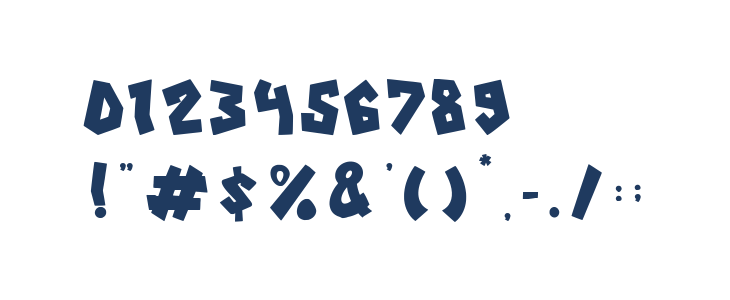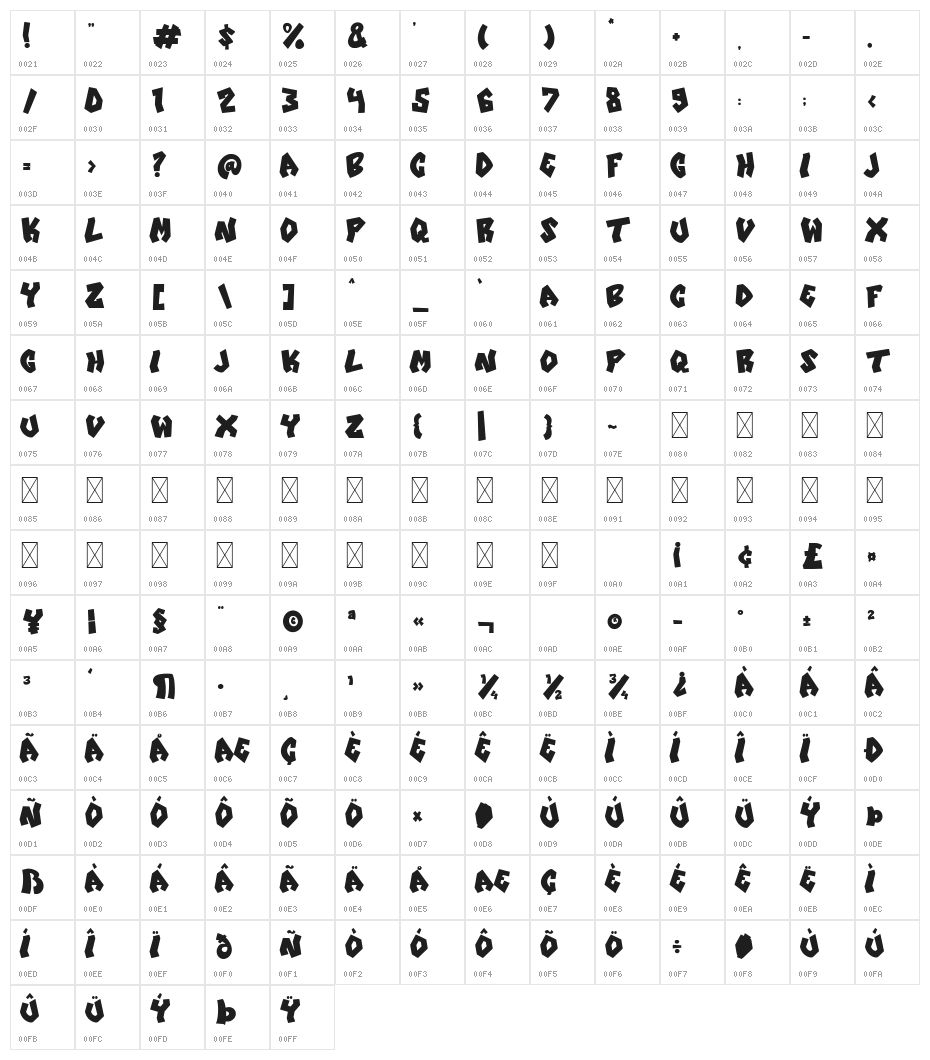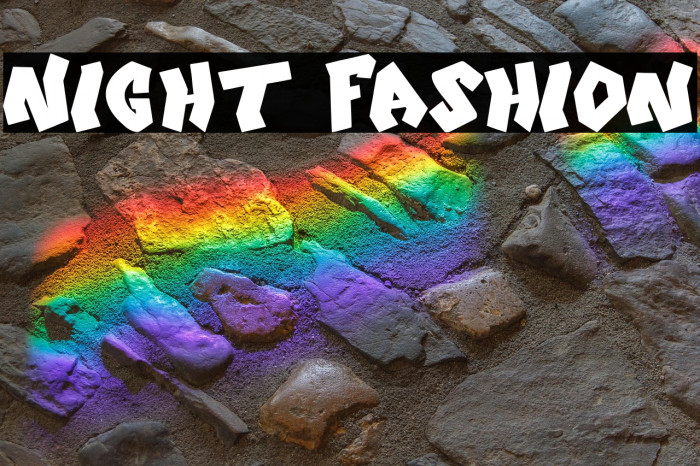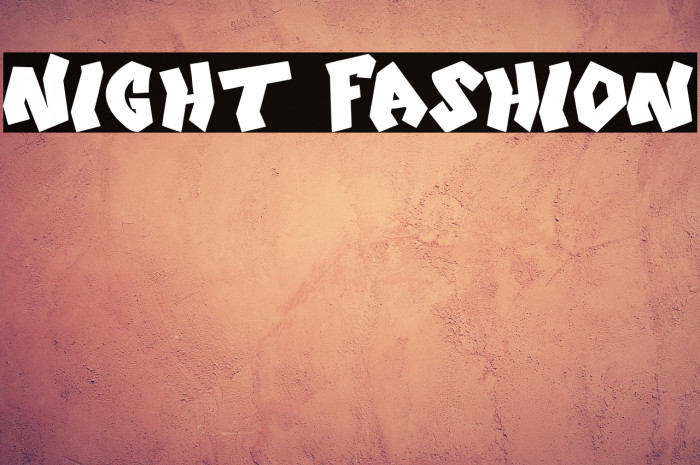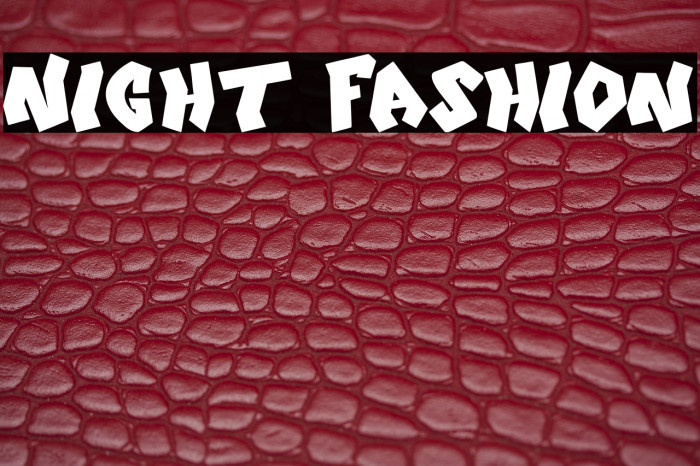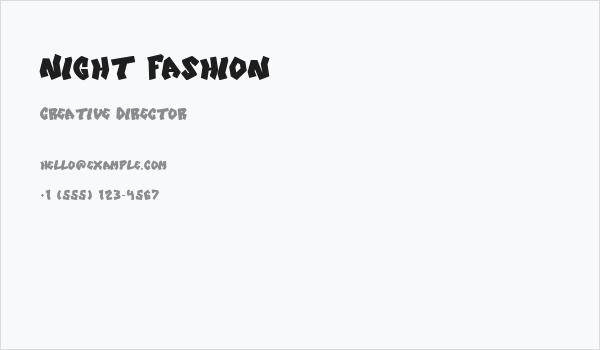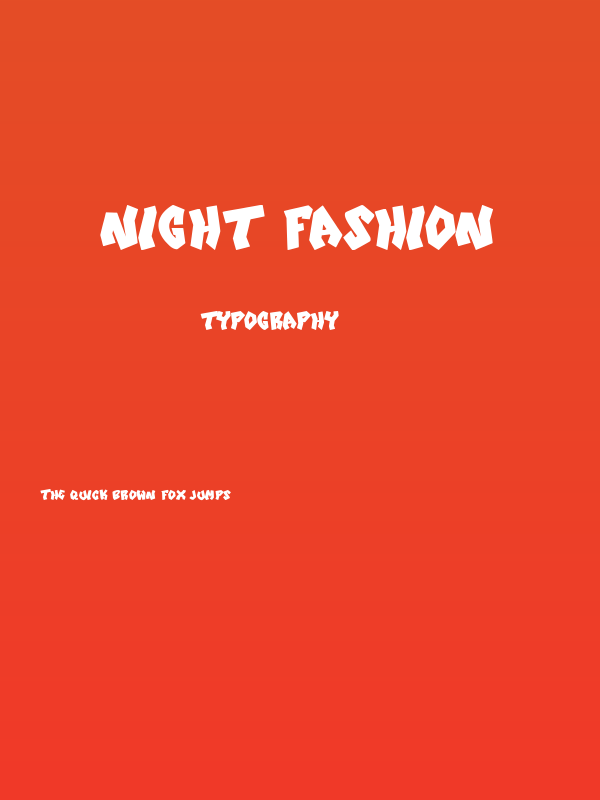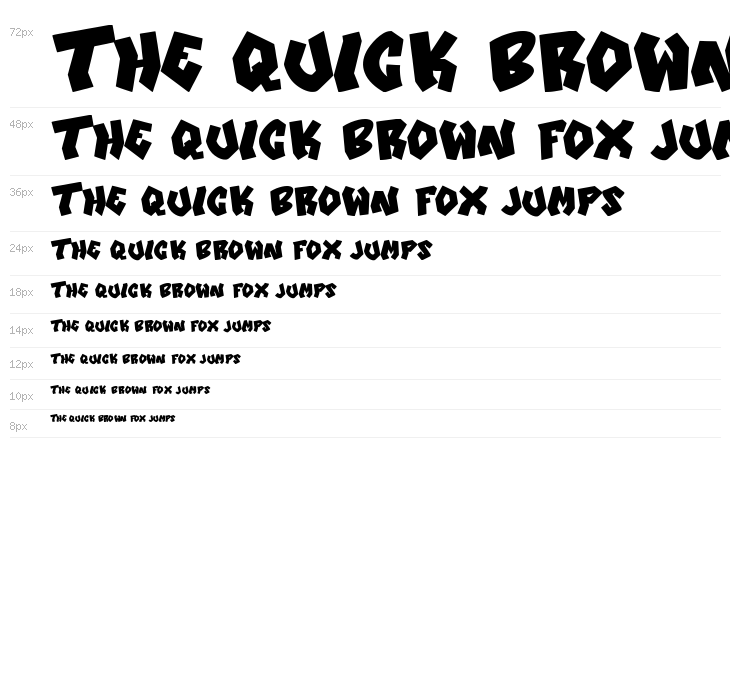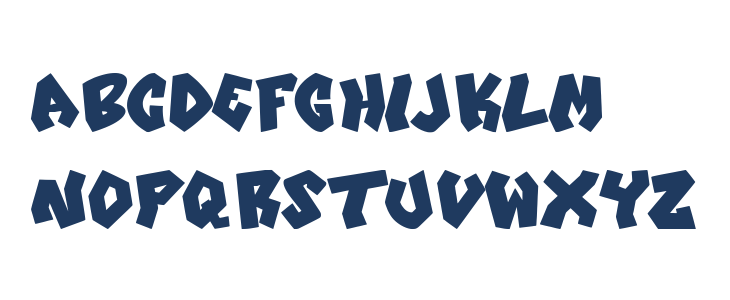
Night Fashion Font
Night Fashion Description
This font features a bold, angular design with a distinctive, edgy appearance. The characters are heavily stylized, with sharp angles and a blocky structure that gives them a dynamic and energetic feel. The uppercase and lowercase letters maintain a consistent style, with each character exhibiting a unique flair that contributes to the overall boldness of the font. The numbers and special characters are equally bold, ensuring a cohesive look across all text elements. This font is ideal for projects that require a strong visual impact and a modern, unconventional aesthetic.
| Proposed Projects | Perfect for streetwear branding, music album covers, event posters, and urban-themed designs. |